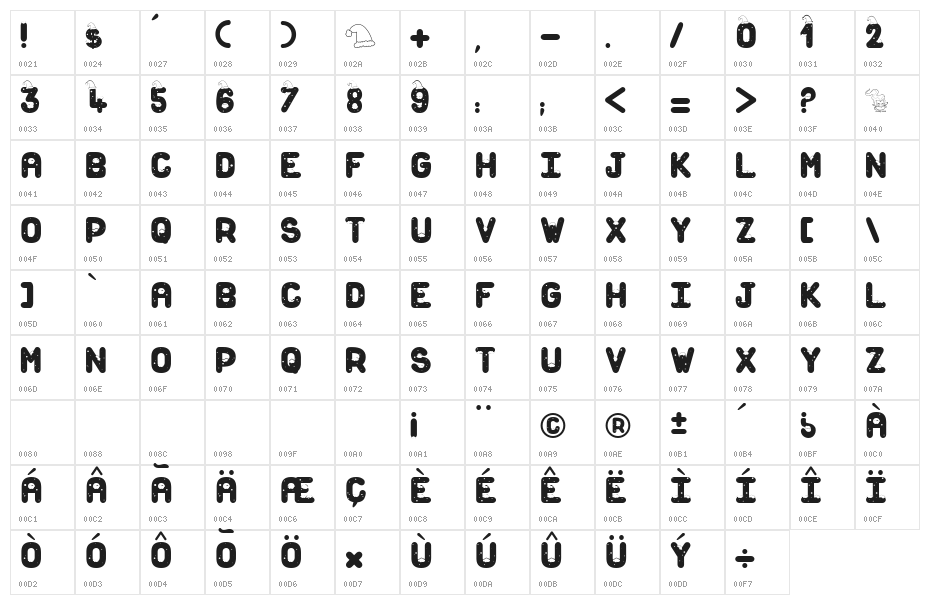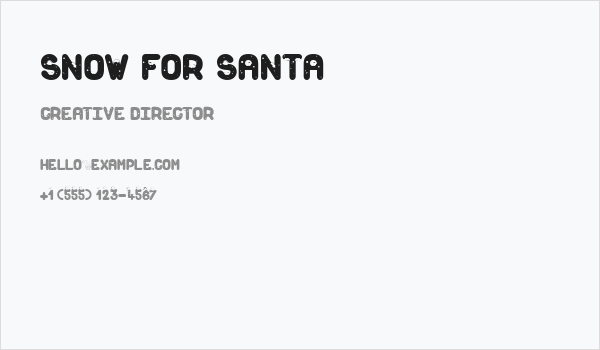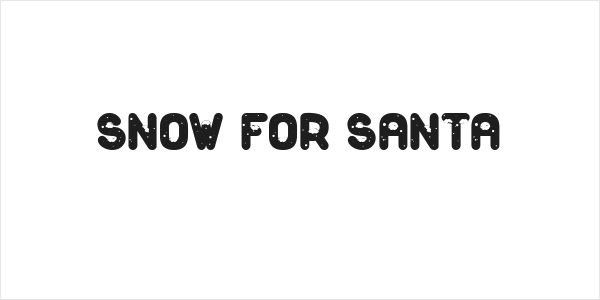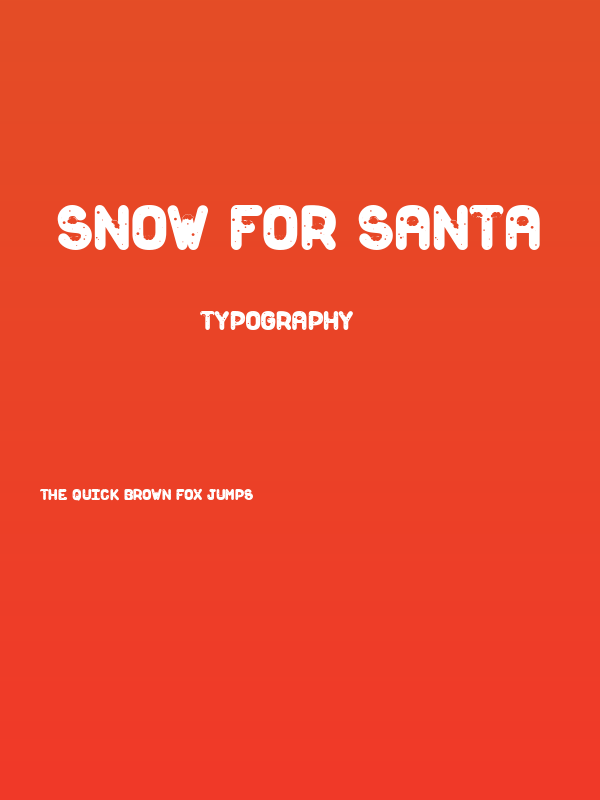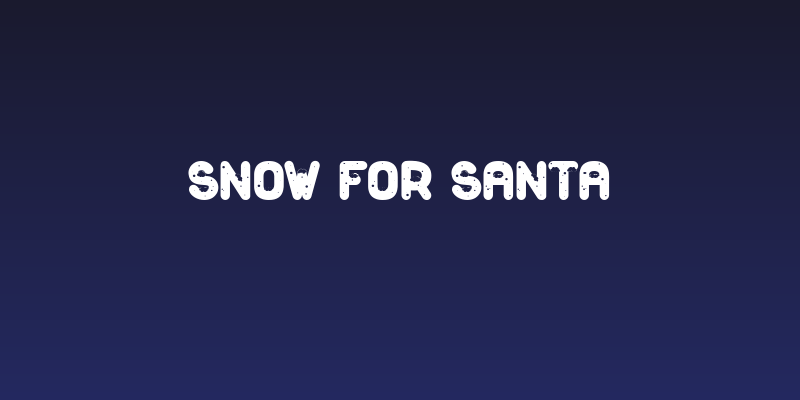
Snow For Santa Font
Snow For Santa Description
This playful and festive font features bold, rounded characters adorned with whimsical snow and Santa hat elements, evoking a cheerful holiday spirit. The uppercase and lowercase letters maintain a consistent style, with each character uniquely decorated to enhance the seasonal theme. The numbers and special characters are similarly styled, making this font perfect for holiday-themed projects. Its decorative nature captures the essence of winter festivities, making it ideal for creating eye-catching designs that celebrate the joy and warmth of the holiday season.
| Overall Style | Festive, Playful |
| Use Case | Headlines, Logos, Decorative text |
| Proposed Projects | Ideal for Christmas cards, holiday banners, festive invitations, and seasonal advertisements. |